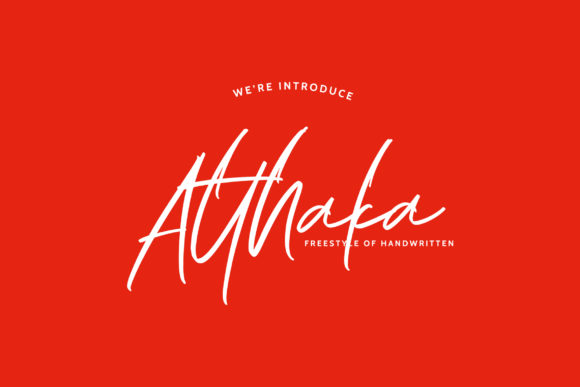
Unleash your artistic flair with Atthaka Font, the captivating script font that exudes charm and authenticity. Crafted by the talented wahyupribadi, this font is a visual symphony that dances across your designs, leaving an imprint of elegance and individuality.
Atthaka Font is more than just a font; it's an invitation to embark on a creative journey. Its graceful strokes and playful curves evoke a sense of nostalgia and warmth, making it perfect for projects that demand a touch of heartfelt expression. Whether you're designing wedding invitations, personal branding materials, or whimsical social media posts, Atthaka Font is your perfect companion.
With Atthaka Font, you'll discover a world of creative possibilities. Its versatile nature allows it to seamlessly blend with various design styles, from classic to contemporary, from minimalist to maximalist. Its delicate lines add a touch of sophistication to formal settings, while its playful charm brings life to casual designs. No matter your vision, Atthaka Font has the versatility to bring it to life.
But what truly sets Atthaka Font apart is its ability to evoke emotions. Its intricate details and flowing curves create a sense of movement and energy that captures the viewer's attention. Whether you're designing a heartwarming love letter or an inspiring poster, Atthaka Font has the power to convey your message with eloquence and grace.
So, if you seek a font that ignites your creativity, sparks joy, and leaves a lasting impression, look no further than Atthaka Font. Its exceptional quality and emotional resonance are sure to captivate your audience and make your designs shine brighter than ever before.